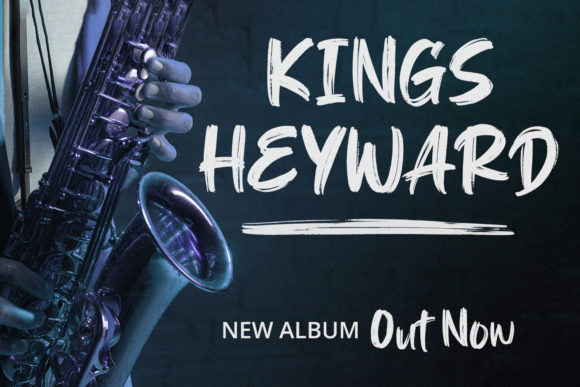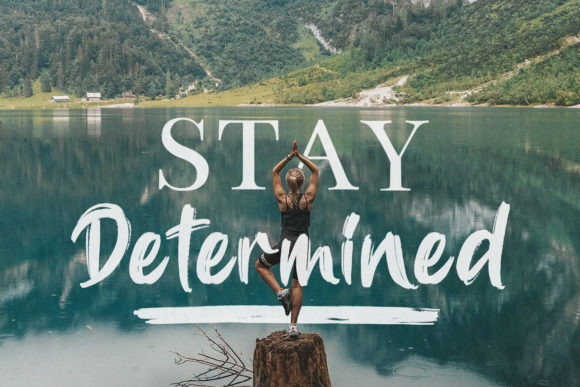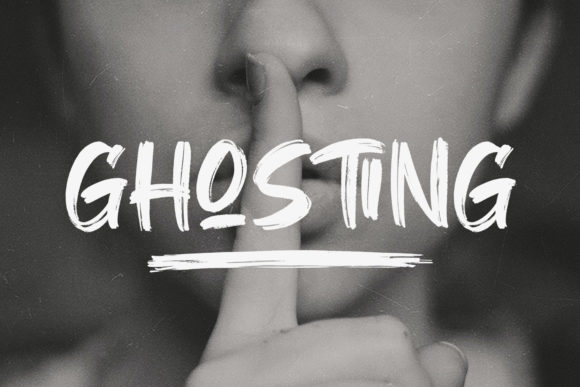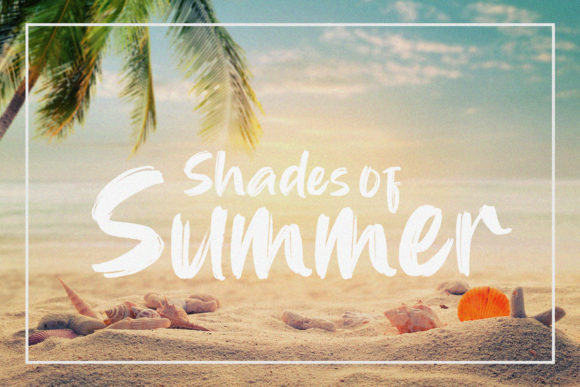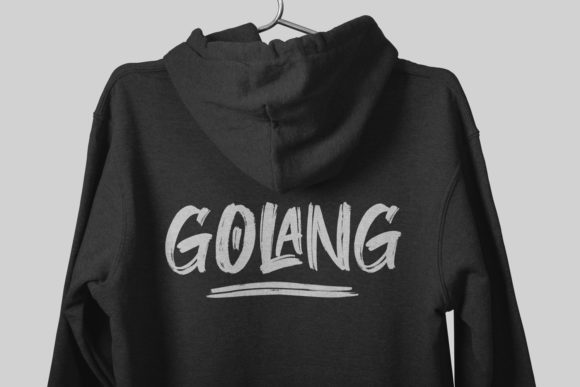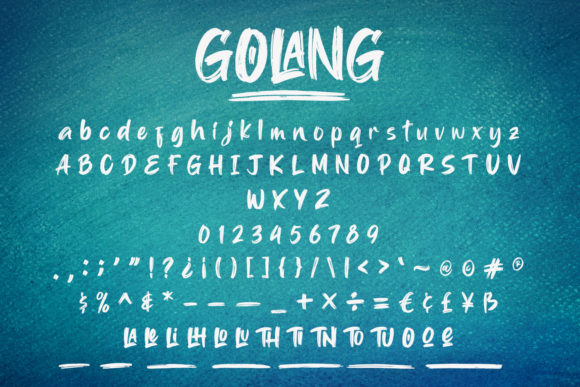
Golang Font: Elevate Your Designs with a Cool, Modern Brushed Display Font
In the world of typography, fonts play a crucial role in conveying messages, expressing emotions, and creating visual identities. For designers, crafters, and creative enthusiasts, finding the right font can make all the difference in elevating their work from ordinary to extraordinary. This is where Golang Font comes in – a cool, modern brushed display font that is poised to become an incredible asset to your font library.
What is Golang Font?
Golang Font is a stylish, contemporary font designed to add a touch of sophistication and flair to any design project. Its unique brushed texture gives it a distinctive look that sets it apart from other fonts. Whether you’re working on a logo, brochure, website, or social media graphics, Golang Font is versatile enough to adapt to various design needs.
Key Features of Golang Font
- Modern Aesthetic: Golang Font boasts a modern, trendy look that will instantly update your designs.
- Brushed Texture: The font’s brushed texture adds a layer of depth and tactility, making your designs more engaging.
- Versatility: Suitable for a wide range of projects, from digital media to print materials.
- Easy to Read: Despite its stylized appearance, Golang Font remains clear and legible, ensuring your message is always communicated effectively.
Why Choose Golang Font?
Choosing the right font can significantly impact the success of your design. Here are a few reasons why Golang Font stands out:
- Uniqueness: In a sea of generic fonts, Golang Font offers a unique look that can help your designs stand out.
- Emotional Connection: The brushed texture of the font can evoke a sense of creativity, craftsmanship, and modernity, helping you connect with your audience on a deeper level.
- Time-Saving: With Golang Font, you don’t have to spend hours designing a custom font. You can achieve professional-looking results quickly and efficiently.
How to Use Golang Font in Your Designs
Integrating Golang Font into your projects is straightforward. Here are some tips to get you started:
- Pair it with Neutrals: Combine Golang Font with neutral fonts for contrast and visual interest.
- Experiment with Colors: The brushed texture of Golang Font looks great with bold colors. Don’t be afraid to experiment and find the perfect match.
- Consider the Context: While Golang Font is versatile, it’s essential to consider the context and purpose of your design. Adjust the font size, style, and color accordingly.
Whether you’re a seasoned designer or a crafting enthusiast, here are some additional tips to help you make the most of Golang Font:
- Play with Ligatures: If Golang Font comes with ligatures, experiment with them to add more flair to your designs.
- Adjust the Weight: Depending on your design needs, you may want to adjust the weight of the font to create visual hierarchy.
- Test and Iterate: Don’t be afraid to test Golang Font in different contexts and iterate on your design until you achieve the desired result.
Golang Font is more than just a font – it’s a design asset that can elevate your creations and help you communicate your message more effectively. With its modern aesthetic, brushed texture, and versatility, it’s an excellent addition to any designer’s or crafter’s font library. So why wait? Explore the possibilities of Golang Font today and take your designs to the next level!